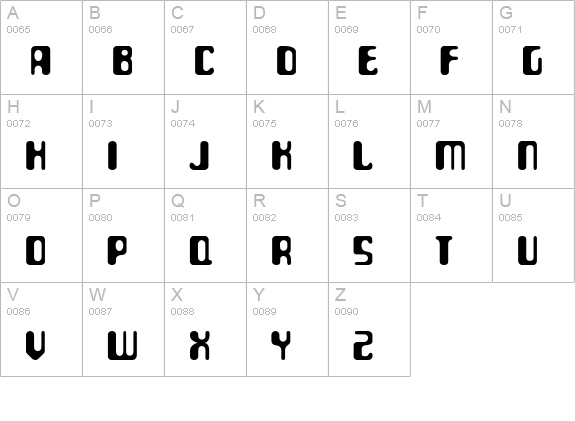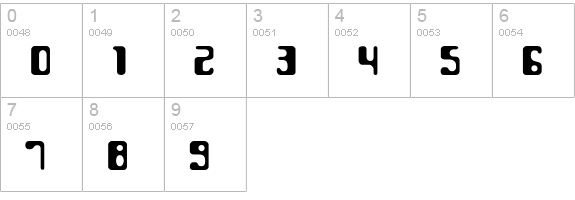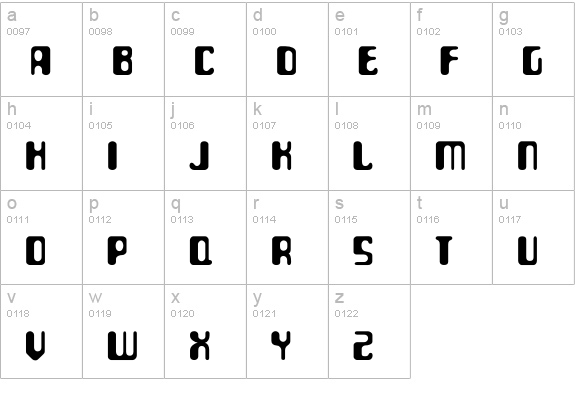
ParaAminobenzoic Font Details
ParaAminobenzoic font is a stunning typeface that combines elegance with versatility. Its sleek and modern design makes it perfect for a wide range of creative projects, from branding and advertising to packaging and web design. The clean lines and balanced proportions of ParaAminobenzoic font give it a timeless appeal that will never go out of style. With its wide range of weights and styles, ParaAminobenzoic font offers endless possibilities for customization and creativity. Whether you're looking for a bold and impactful headline or a subtle and sophisticated body text, this font has got you covered. Its versatility allows it to adapt to any design concept, making it a valuable addition to any designer's toolkit. One of the greatest advantages of ParaAminobenzoic font is that it is freely available to download at FontsMarket.com. This means that you can access this amazing font without any cost, making it an excellent option for designers on a budget or those who simply appreciate the value of high-quality free resources. ParaAminobenzoic font is not only visually appealing but also highly legible, ensuring that your message is effectively communicated to your audience. Its carefully crafted letterforms and generous spacing make reading a pleasure, whether in print or on screen. This font is designed to make your text stand out and leave a lasting impression. So why wait? Take advantage of the free availability of ParaAminobenzoic font at FontsMarket.com and add a touch of elegance and professionalism to your next design project. Whether you're working on a logo, a poster, a website, or anything in between, ParaAminobenzoic font is sure to elevate your design to new heights. Download it today and let your creativity soar.